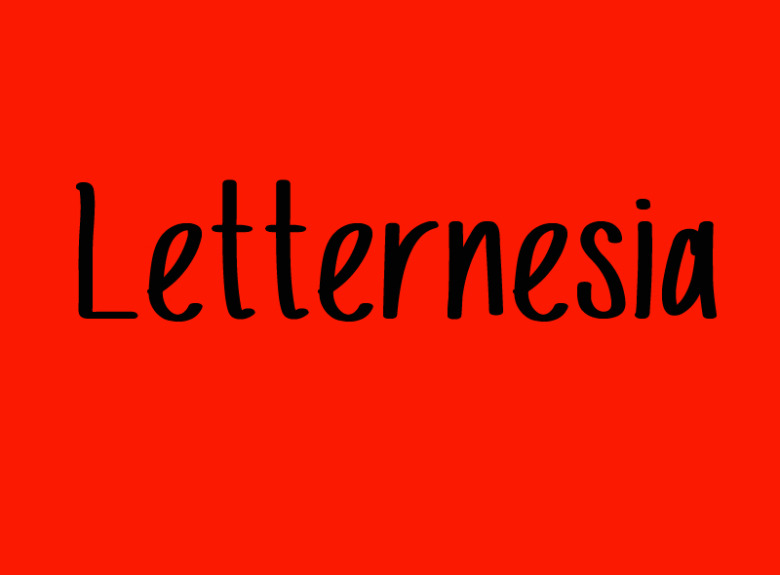
Letternesia Font
Letternesia is a high quality Handwritten font that is designed by Eko Samp and is available for free download and personal use. The free version provides all uppercase and lowercase letters and a few special characters too.